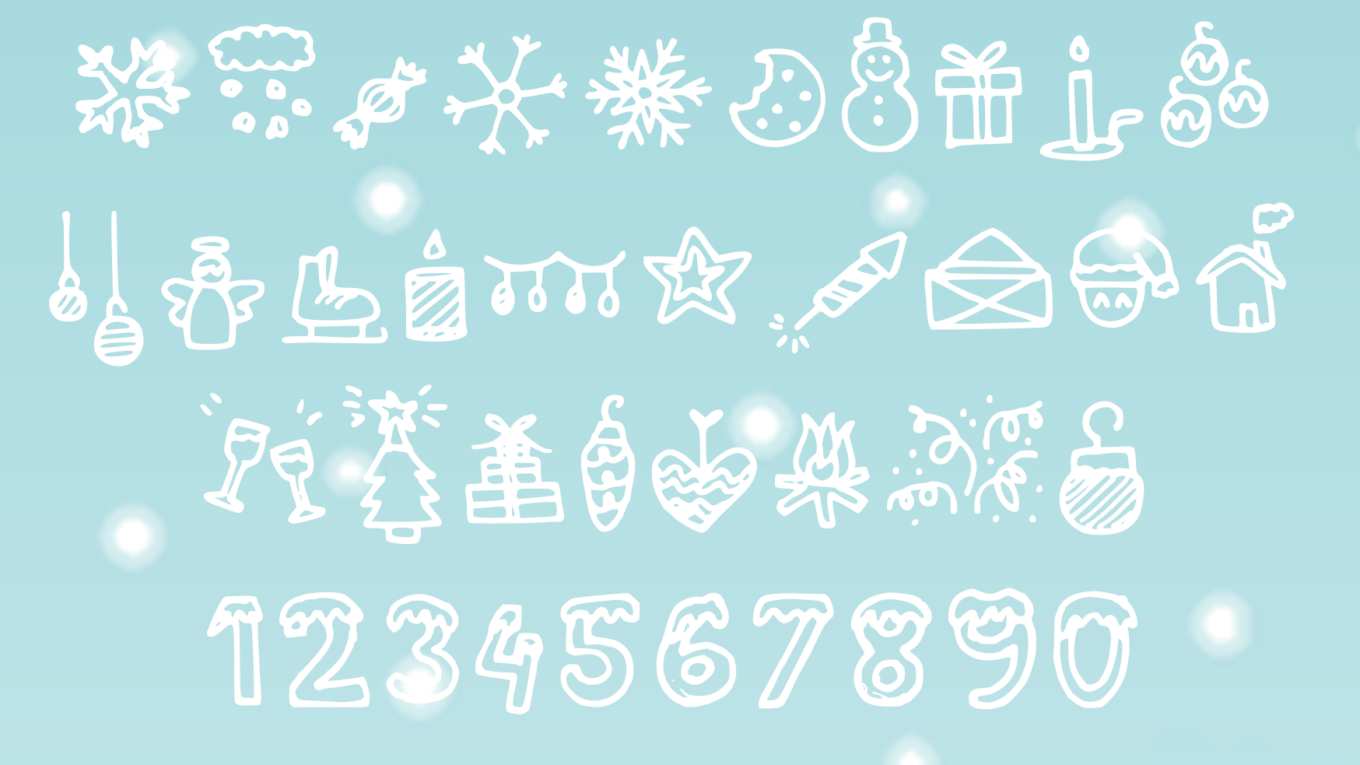
Christmas Icons Font: Create Your Own Personalized Winter Wonderland
Are you a designer, crafter, or DIY enthusiast looking to add a personal touch to your winter-themed projects? Do you want to create unique and festive Christmas cards, invitations, or decorations that stand out from the crowd? Look no further! We’re excited to introduce you to our Christmas Icons Font, a set of delightful icons inspired by the magic of the holiday season.
Unleash Your Creativity with Christmas Icons Font
With our Christmas Icons Font, you can add a dash of festive fun to your designs and make them truly special. This comprehensive set of icons features a wide range of winter-themed elements, including snowflakes, reindeer, Christmas trees, stockings, and more. Whether you’re creating digital or print materials, our icons will help you evoke the cozy, festive atmosphere of the holiday season.
Why Choose Christmas Icons Font?
- Unique and Exclusive Design: Our Christmas Icons Font is carefully crafted to bring a touch of elegance and whimsy to your designs. Each icon is meticulously designed to ensure that your projects stand out from the crowd.
- Verseatile and Customizable: Our icons are perfect for a wide range of applications, from Christmas cards and invitations to social media graphics, blog posts, and more. You can use them as is or modify them to fit your brand’s style and aesthetic.
Ideas for Using Christmas Icons Font
The possibilities are endless when it comes to using our Christmas Icons Font. Here are a few ideas to get you started:
- Christmas Cards and Invitations: Create personalized holiday cards and invitations that showcase your unique style and flair.
- Winter-themed Blog Posts and Social Media Graphics: Add a touch of festive fun to your blog posts and social media graphics with our Christmas Icons Font.
- DIY Crafts and Decorations: Use our icons to create custom decorations, gift tags, and other DIY crafts that make your holiday season even more special.
- Branding and Marketing Materials: Incorporate our Christmas Icons Font into your branding and marketing materials, such as holiday-themed packaging, advertisements, and more.
Get Ready to Spread Holiday Cheer!
With our Christmas Icons Font, you’ll be able to create stunning, one-of-a-kind designs that capture the essence of the holiday season. So why wait? Download our Christmas Icons Font today and get ready to spread holiday cheer to your friends, family, and followers!
Key Features of Christmas Icons Font
- Comprehensive Set of Icons: Our font features a wide range of winter-themed icons, including snowflakes, reindeer, Christmas trees, stockings, and more.
- Scalable and Editable: Our icons are designed to be scalable and editable, making it easy for you to customize them to fit your needs.
Make this holiday season one to remember with our Christmas Icons Font. Whether you’re a designer, crafter, or DIY enthusiast, our comprehensive set of icons will help you create unique and festive designs that showcase your personal style. So don’t wait – download our Christmas Icons Font today and get ready to make your holiday season even more special!